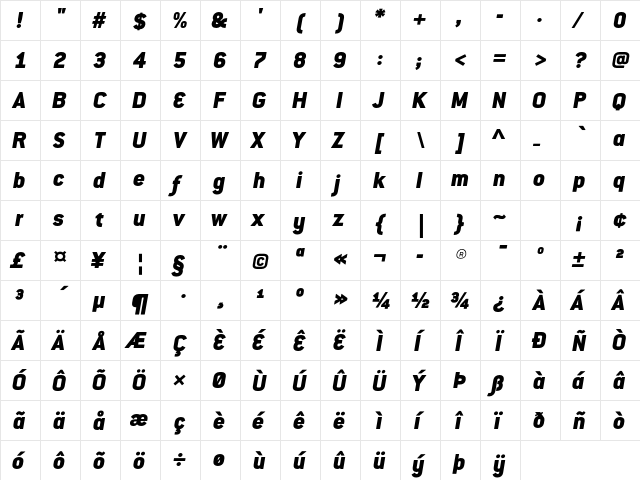
ConduitITCStd BlackItalic Font Preview
| Foundry | International Typeface Corporation |
| Designer | Mark van Bronkhorst, MvB Design |
Design Context for ConduitITCStd Typeface
ConduitITCStd offers clean, dependable letterforms without strong stylistic allegiance, making it a practical choice for designers who need flexibility. The slanted form adds forward momentum and visual energy. Its narrow stance lets it pack a punch even in space-constrained designs.
Pro Tip: Try ConduitITCStd for annotation and caption copy alongside an upright companion — the contrast in angle creates a dynamic but ordered typographic system.